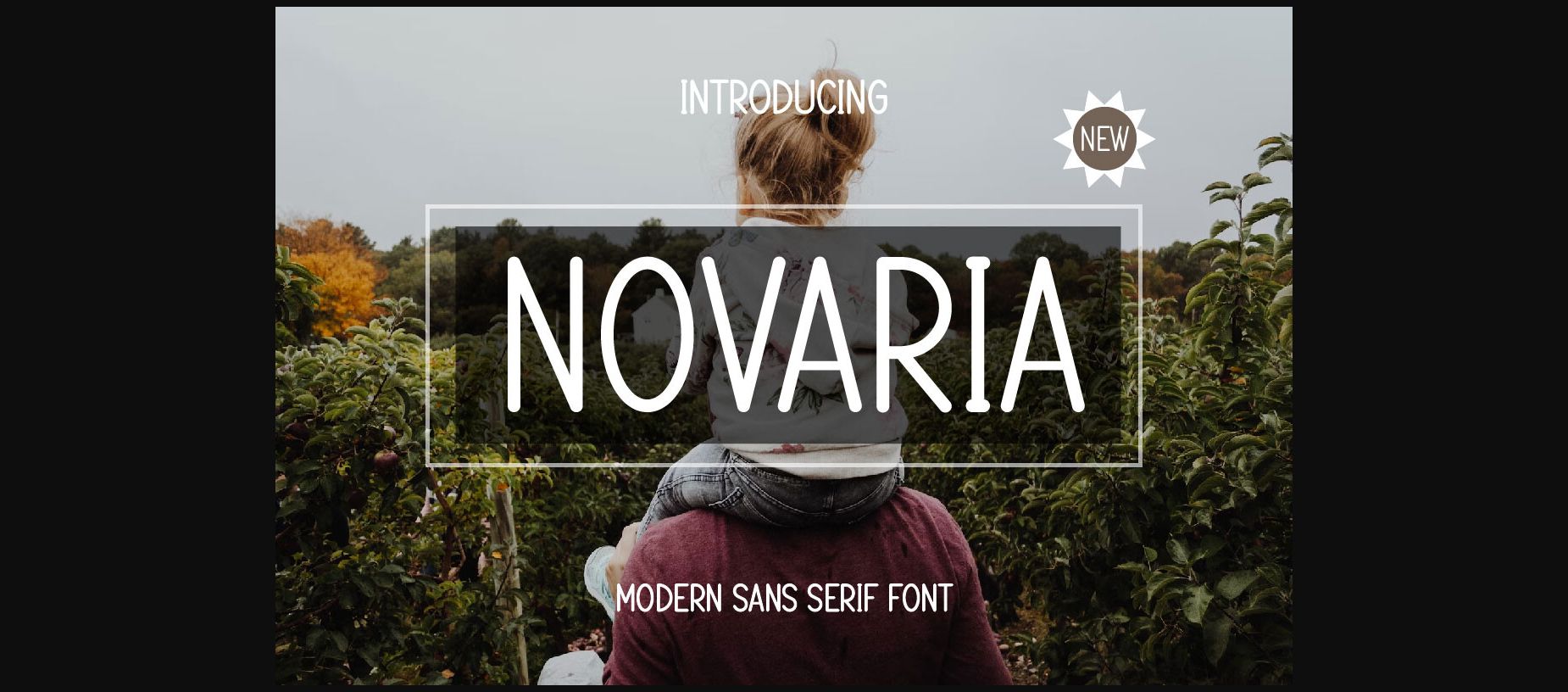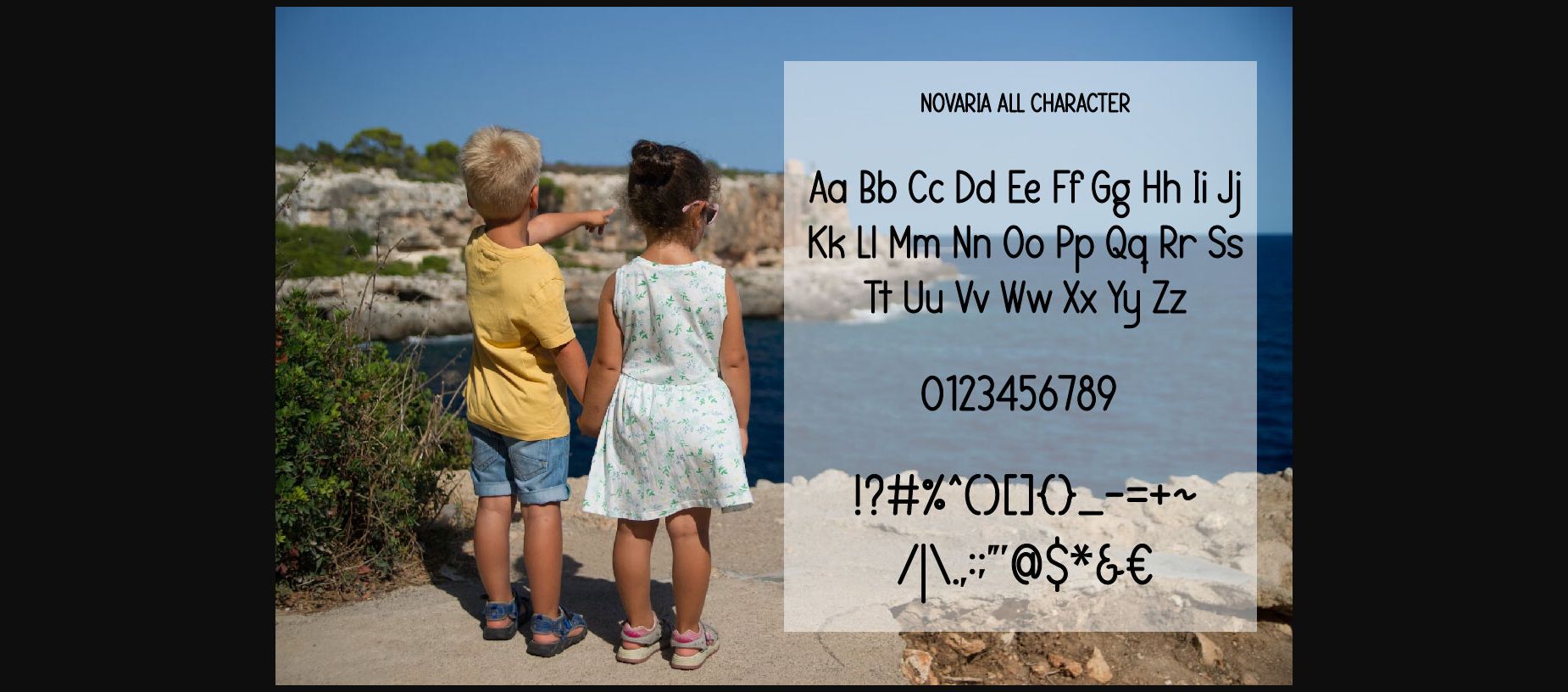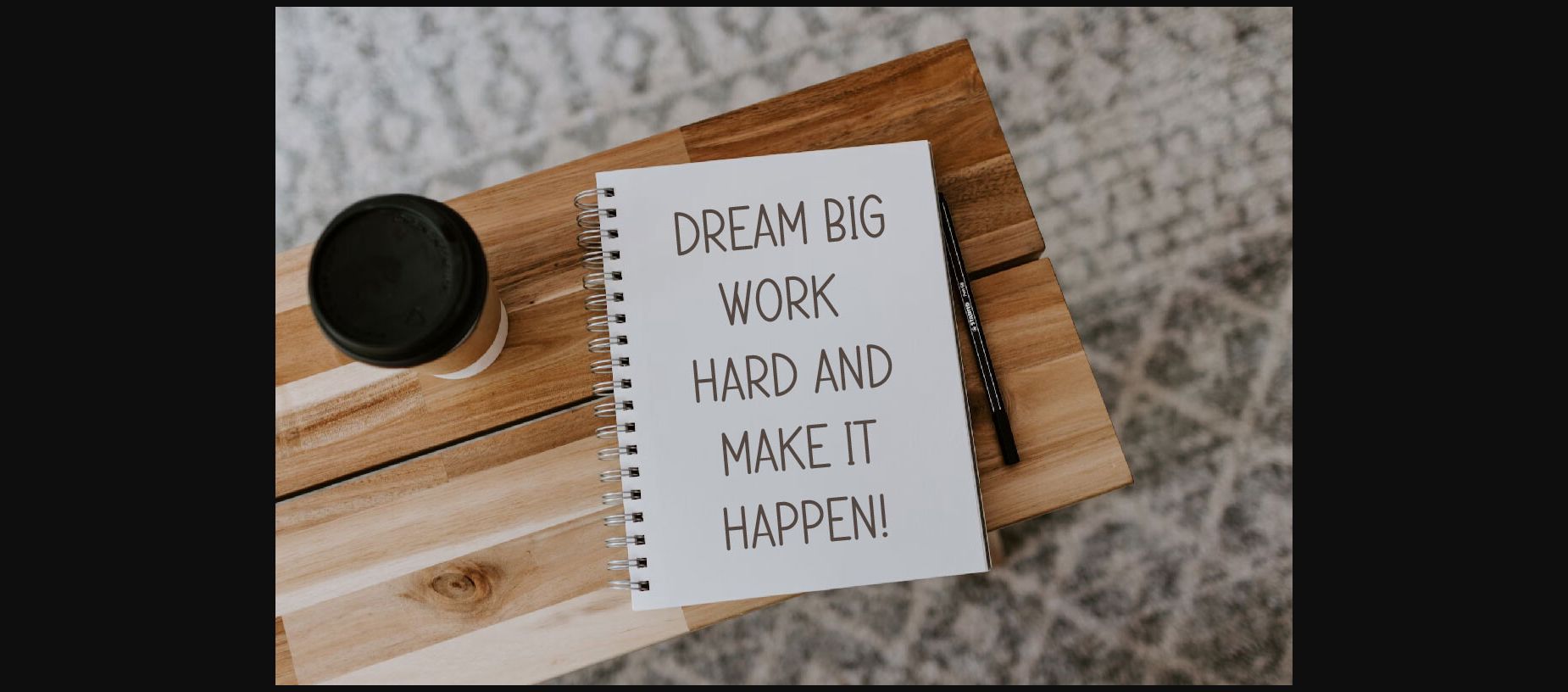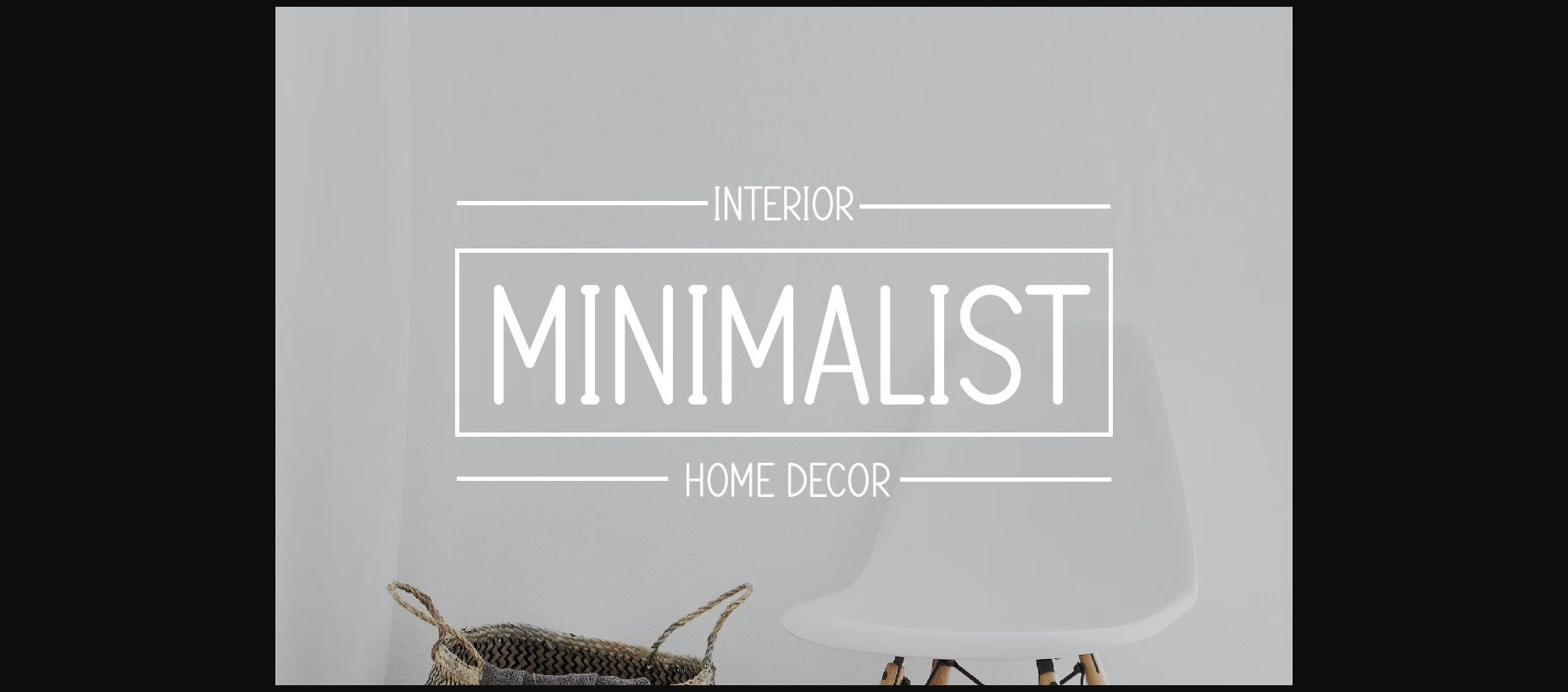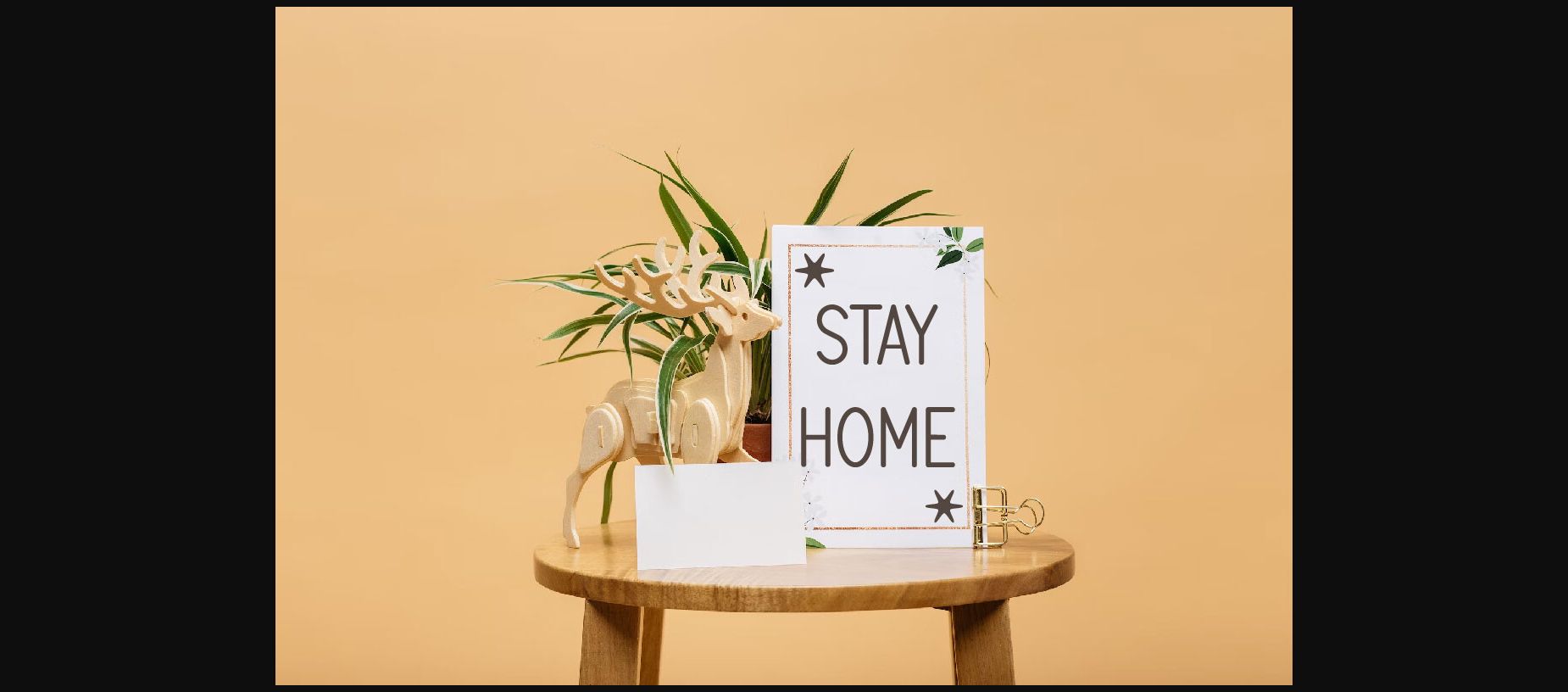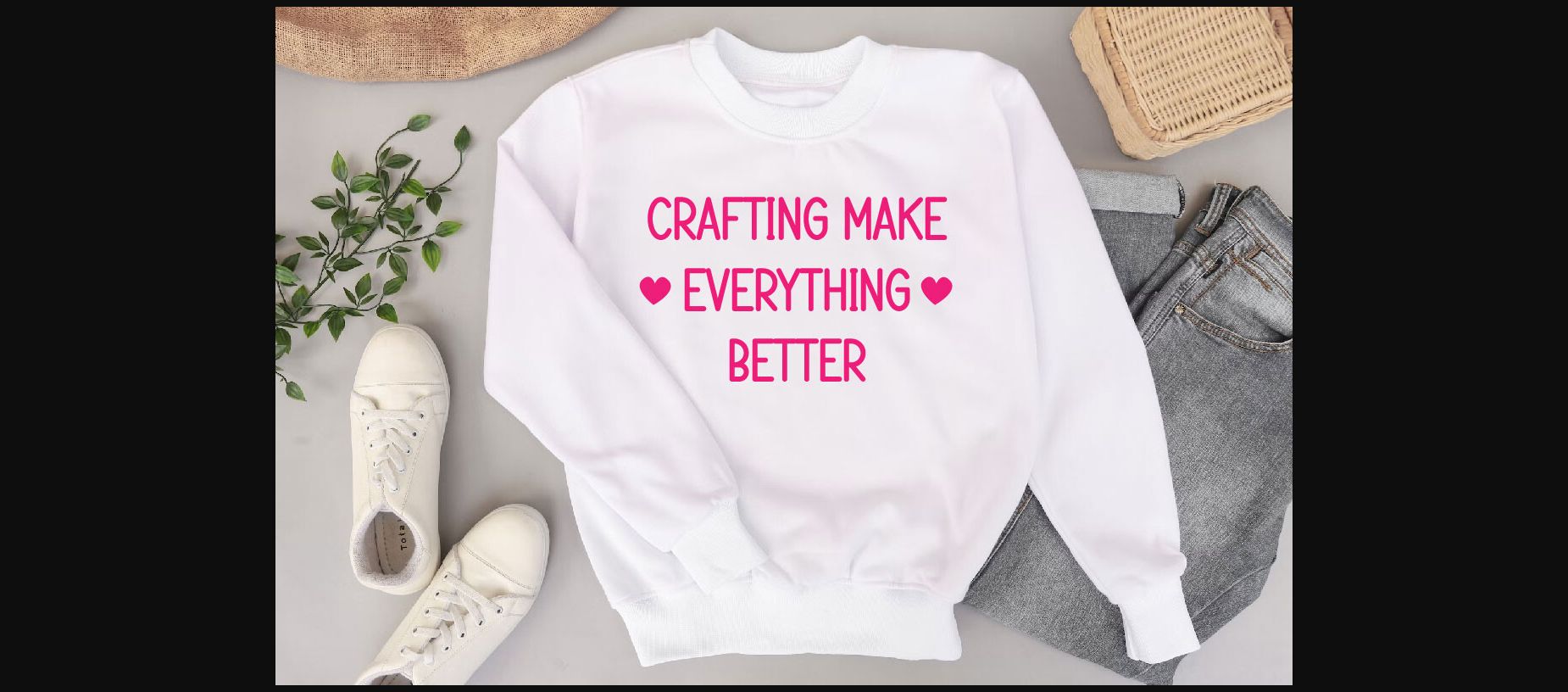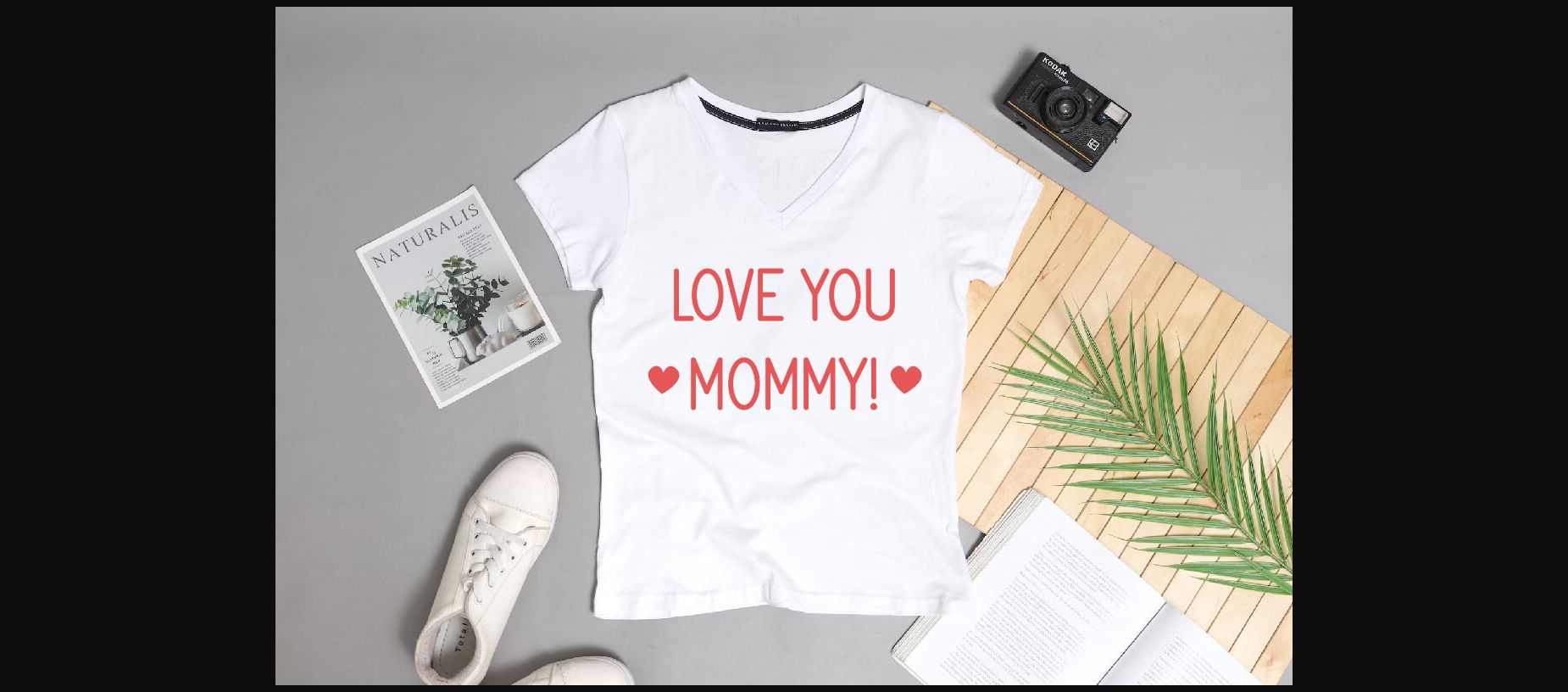
About Novaria Font
Novaria is a clean and simple sans serif font. This clean, neat font has a wide spectrum of applications from t-shirt design, invitation cards, weddings, quotes, decor, crafts, sayings to headlines and is guaranteed to add a bit of humor to your next project.